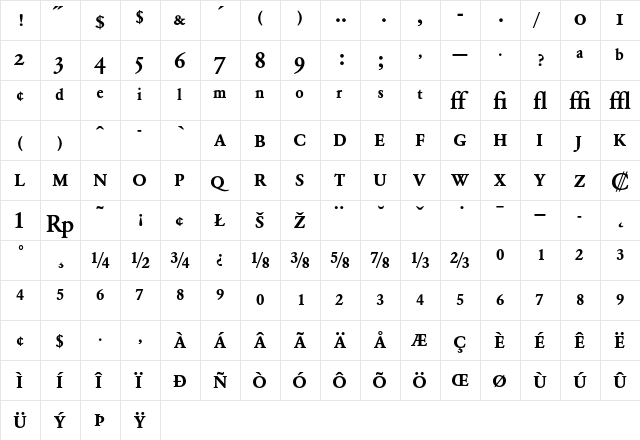
Garamond BE Medium Expert Font Preview
Garamond BE Medium Expert
Design Context for Garamond BE Typeface
Garamond BE is a composed and adaptable typeface that performs quietly and consistently across a wide range of design contexts.
Pro Tip: Use Garamond BE in both headline and body roles to test its range before committing to a single application.